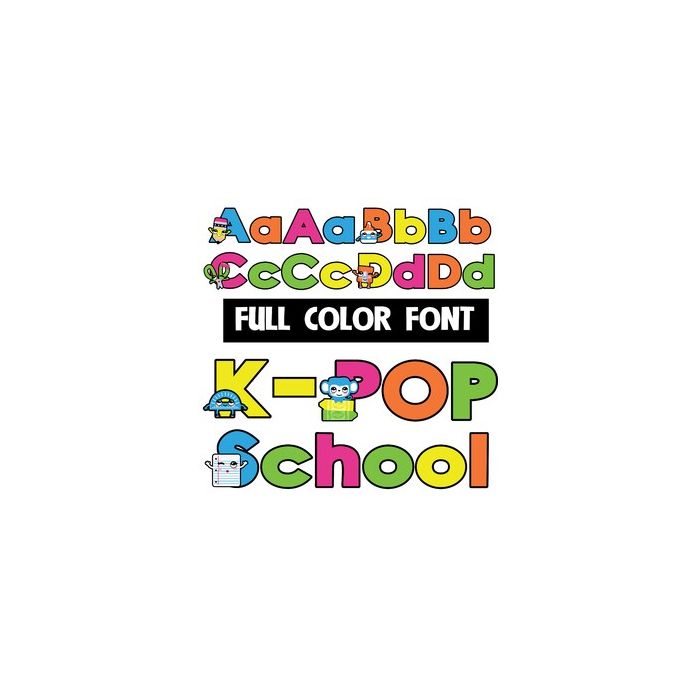
This full-color font features adorable K-pop illustrations of school supplies and kids. There is a secondary color of each letter you can access through your system's or Silhouette's glyph map.